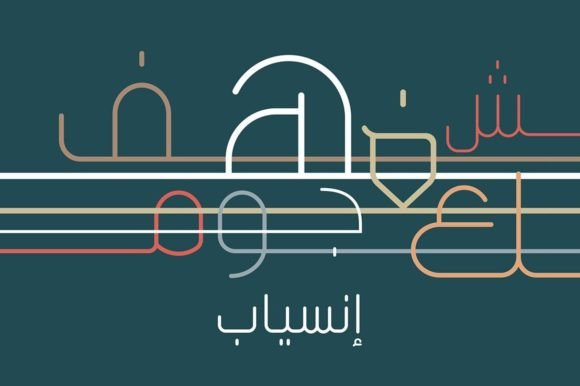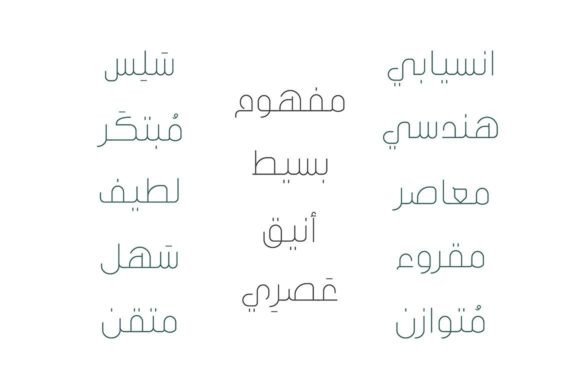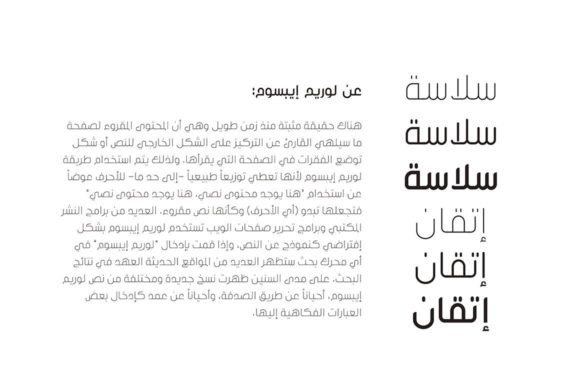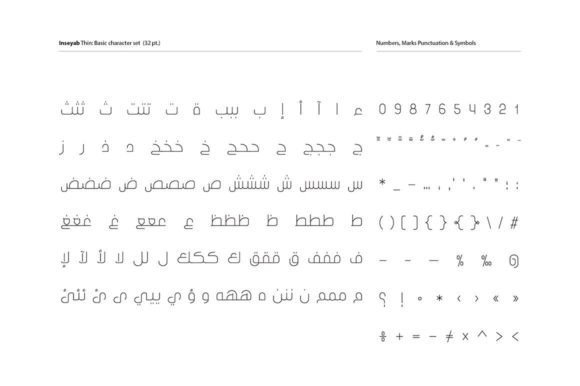
Inseyab Font: Elegant Arabic Typography for Modern Logo Design
About the Inseyab Font
Presenting Inseyab Font, a unique and stylish typeface that will make your work stand out. Inseyab is an Arabic typeface that fuses Kufic geometry with contemporary graphic style to build elegant letterforms. The name Inseyab comes from the Arabic word for Flow and is believed to reflect the simplicity and smoothness of movements. The typeface consists of three weights (Thin, Regular, and Bold) and suits titling as well as short paragraphs.
Inseyab’s elegant geometry makes it ideal for headlines, logos, and short-form text in branding materials, posters, and packaging design where its refined aesthetic can shine. Its strong visual impact is less suitable for body text or extended reading; the Kufic-inspired forms, while beautiful, can become visually tiring over larger blocks of text. Avoid using it in user interfaces (UI) where high legibility is paramount.
Its inherent sophistication pairs well with clean sans-serif fonts like Open Sans or Montserrat for a balanced contrast. For a more luxurious feel, consider pairing it with a classic serif such as Garamond or Didot. A script font like Playfair Display could add a touch of handwritten elegance to projects requiring a more personal feel.
Inseyab projects a sophisticated and modern personality, lending itself well to brands emphasizing luxury, art, culture, or technology, where a sense of refined boldness is desired.
Inseyab Font Usage Examples
Inseyab Font Example